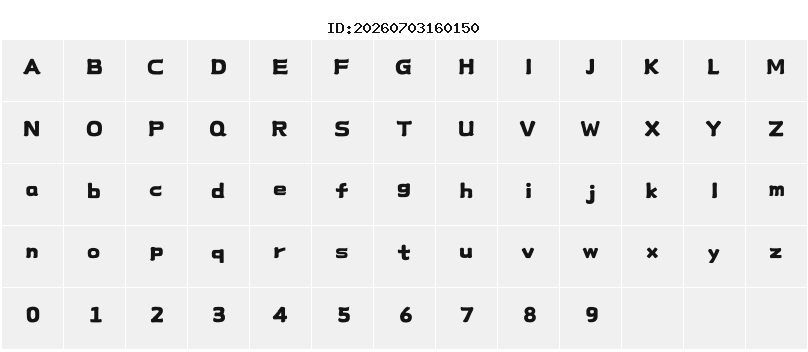
395-上首鸿福体 Preview
• Font Name: 395-上首鸿福体
• Font ID: 395-SSHongFuTi:Version 4.00
• Full Font Name: 395-上首鸿福体
• Version: Version 4.00 January 18, 2025
• PostScript Name: 395-SSHongFuTi
• Character Count: 7568
• Manufacturer: 上首造字
About 395-上首鸿福体.ttf
395-上首鸿福体.ttf is a modern, elegant sans-serif font designed for ultimate readability and visual harmony. Perfect for branding, headlines, web design, and print materials.